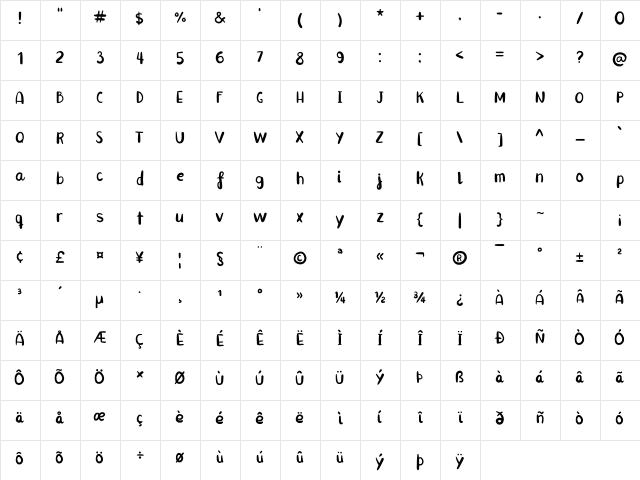
Stuart Regular
| Designer | Carolina Valtuille |
Stuart is a composed and adaptable typeface that performs quietly and consistently across a wide range of design contexts.